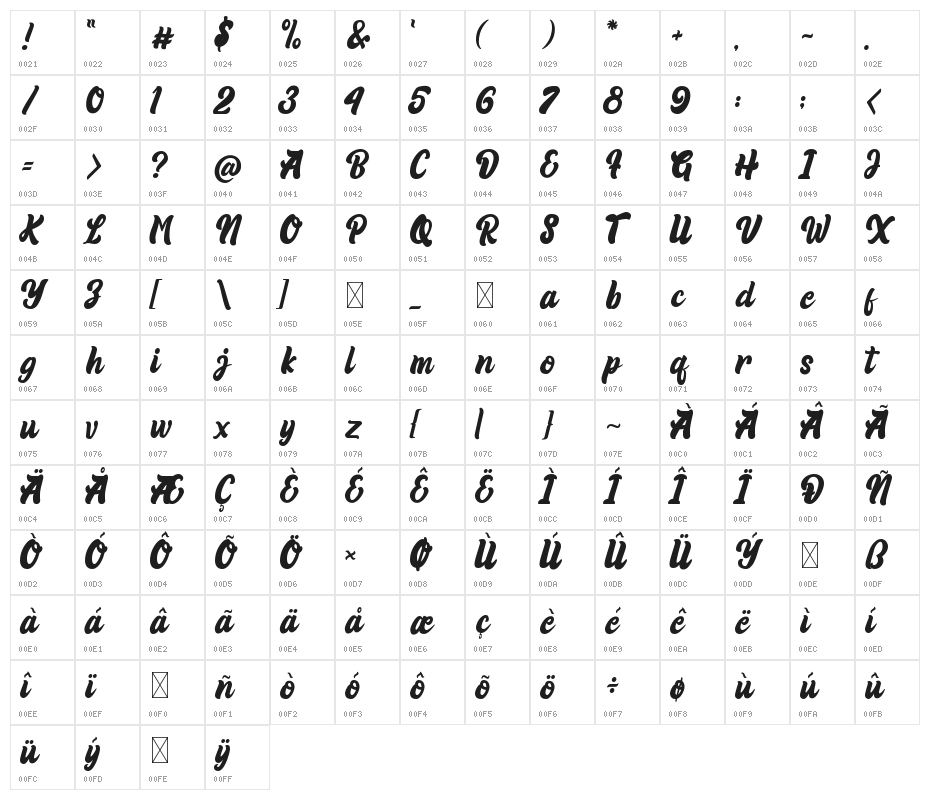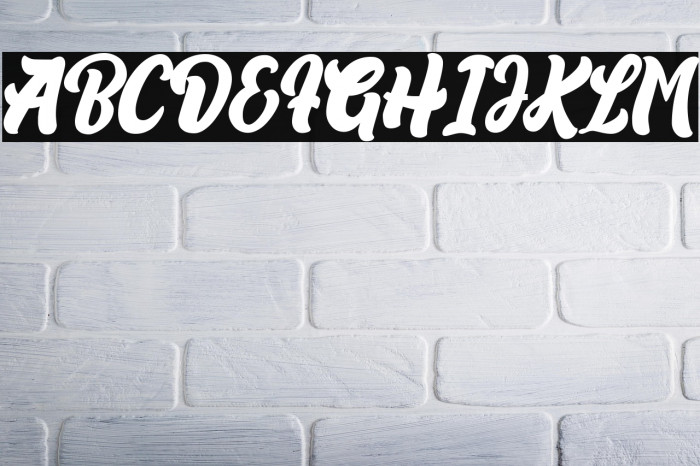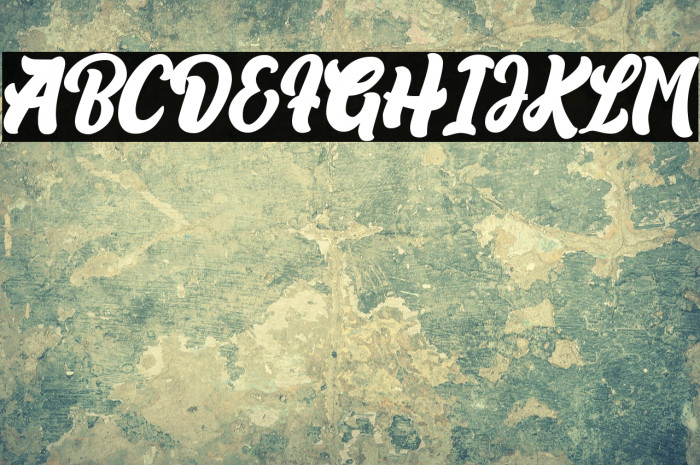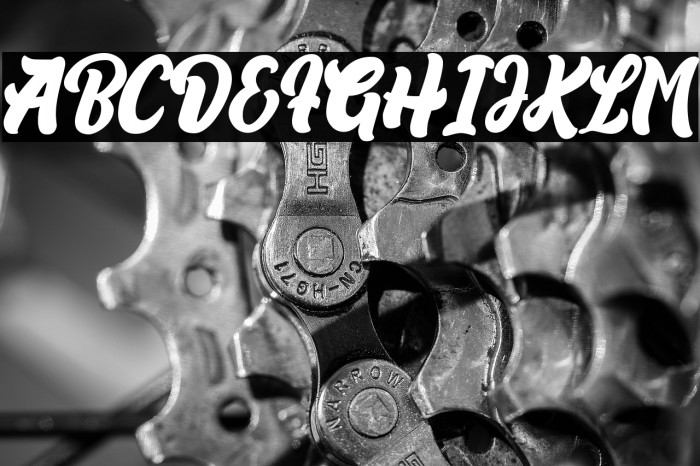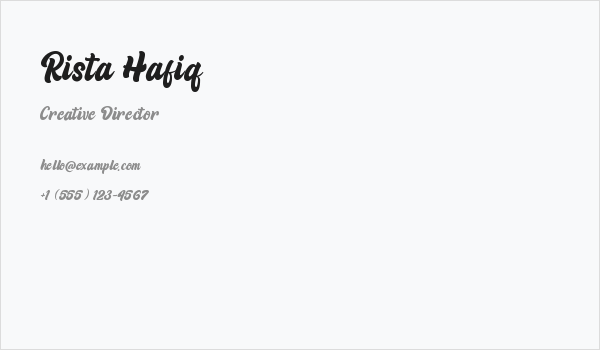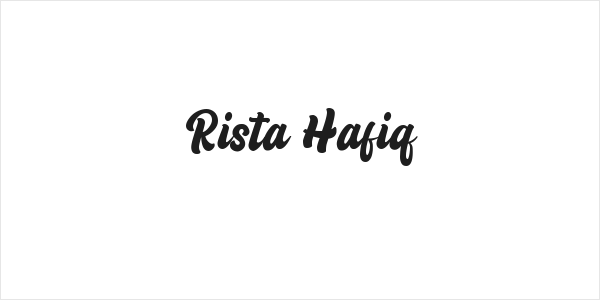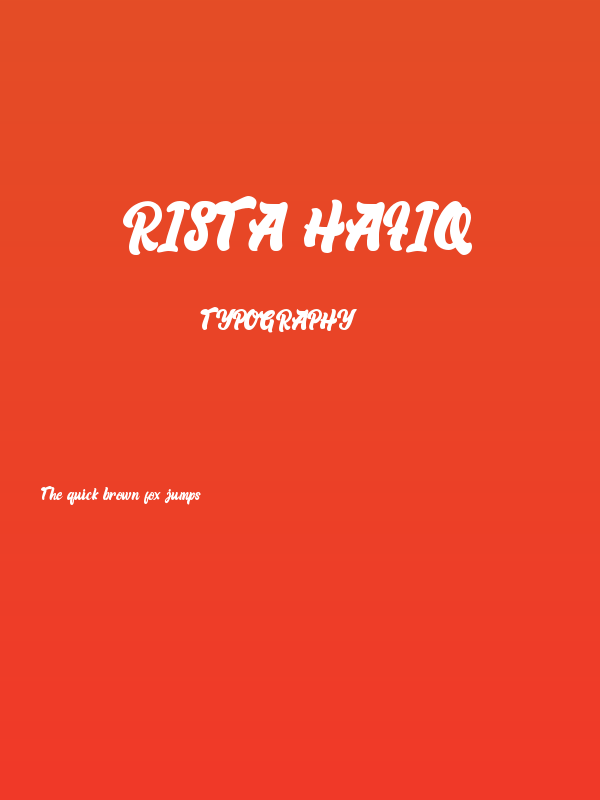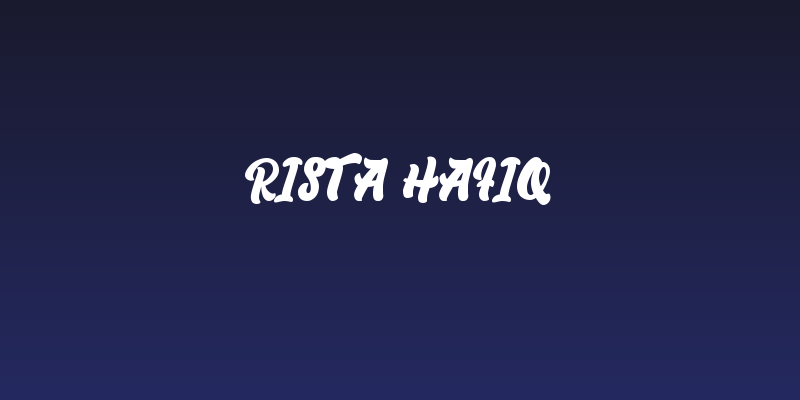
Rista Hafiq Font
Rista Hafiq Description
This font features a bold and expressive script style with a flowing, cursive design. The characters are interconnected, creating a sense of movement and fluidity. The uppercase letters are slightly larger and more pronounced, while the lowercase letters maintain a consistent flow. The numerals are rounded and maintain the same boldness as the letters. Special characters are integrated seamlessly, matching the overall style. This font exudes a sense of elegance and dynamism, making it suitable for creative and artistic projects.